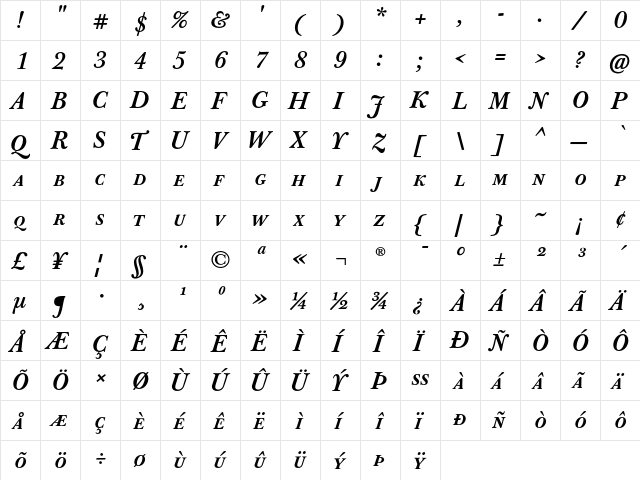
J Baskerville T Caps Bold Italic
Design Context for J Baskerville T Caps Typeface
J Baskerville T Caps offers clean, dependable letterforms without strong stylistic allegiance, making it a practical choice for designers who need flexibility. The slanted form adds forward momentum and visual energy. Its bold stroke weight gives it real presence on the page.
Pro Tip: Use J Baskerville T Caps for emphasis, pull quotes, and subheadings where its slanted energy can add rhythm to the layout.